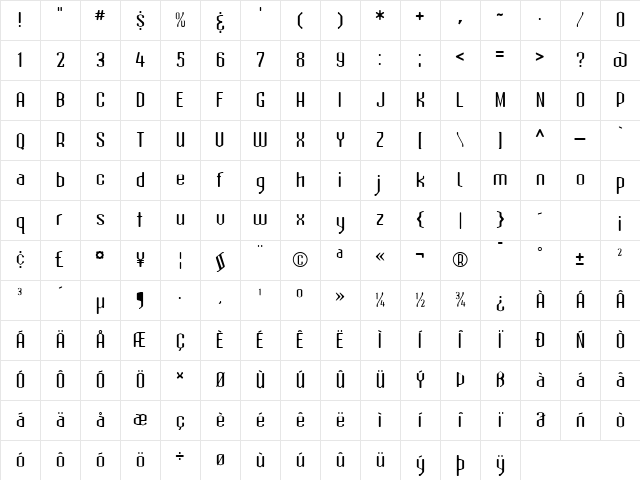
Complete AtomicSansICG Medium glyph index. Displaying only characters natively supported by AtomicSansICG Medium font.
AtomicSansICG is a composed and adaptable typeface that performs quietly and consistently across a wide range of design contexts.